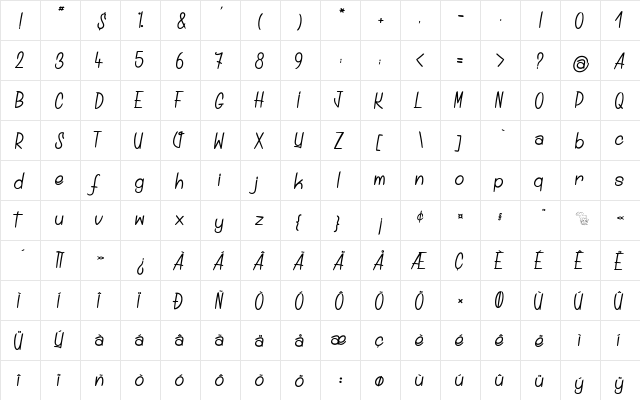
Distillated Regular
Design Context for Distillated Typeface
Distillated is a composed and adaptable typeface that performs quietly and consistently across a wide range of design contexts.